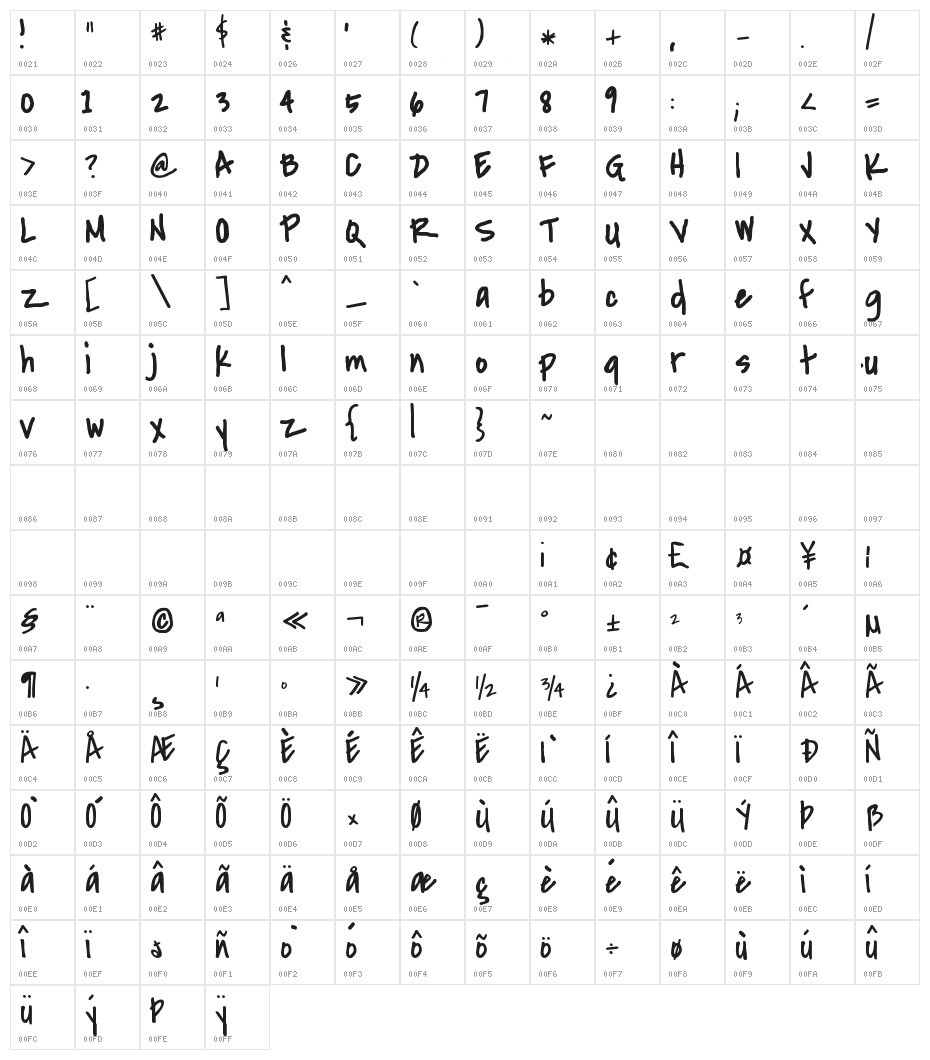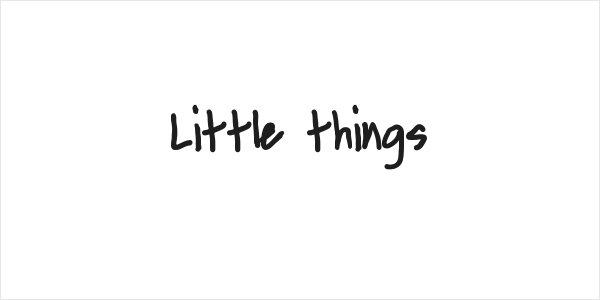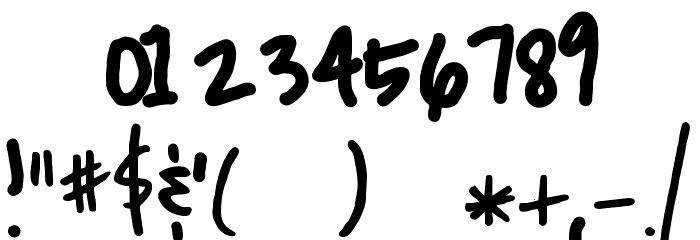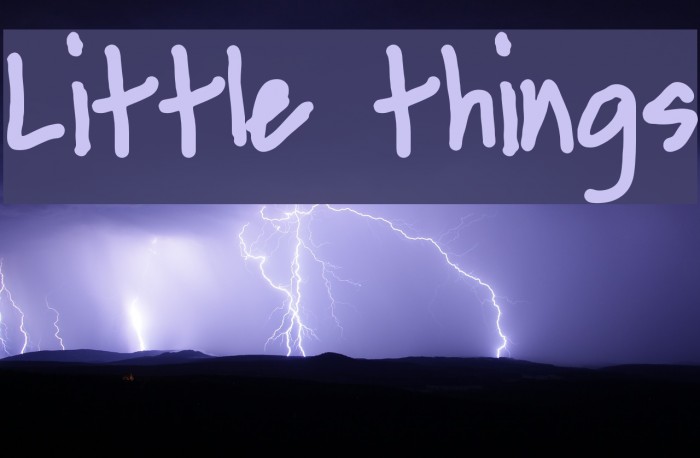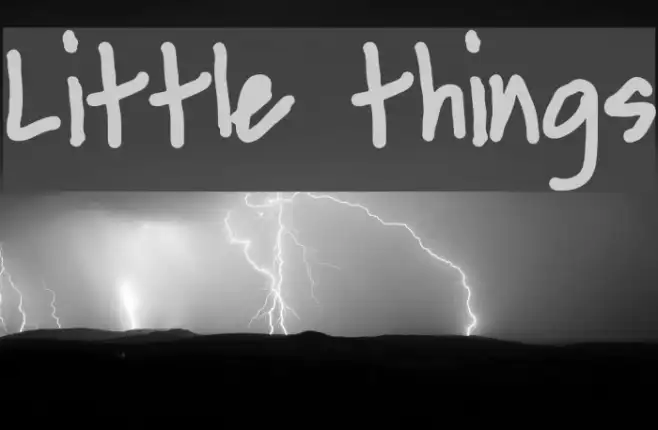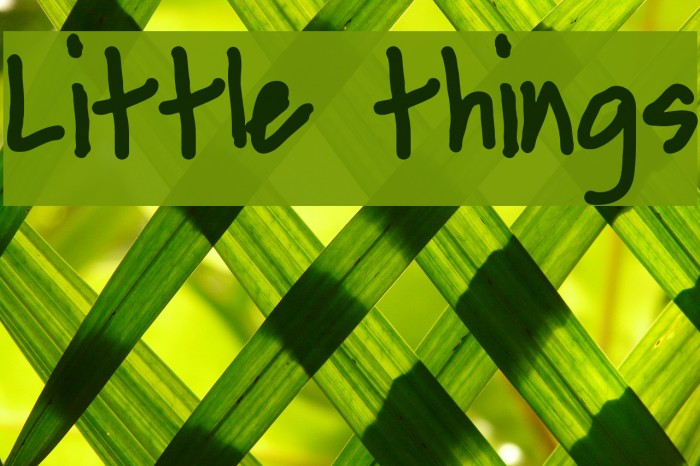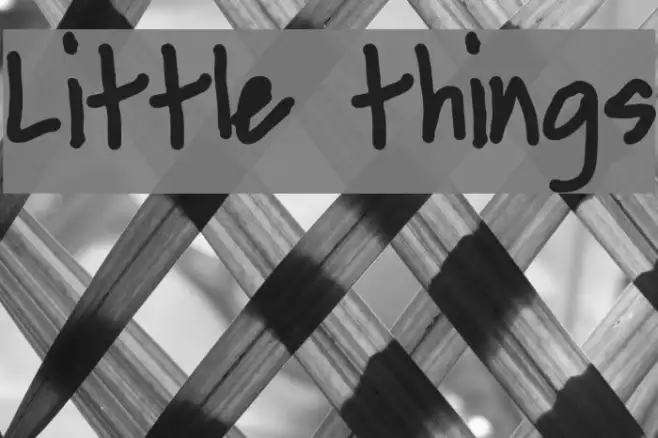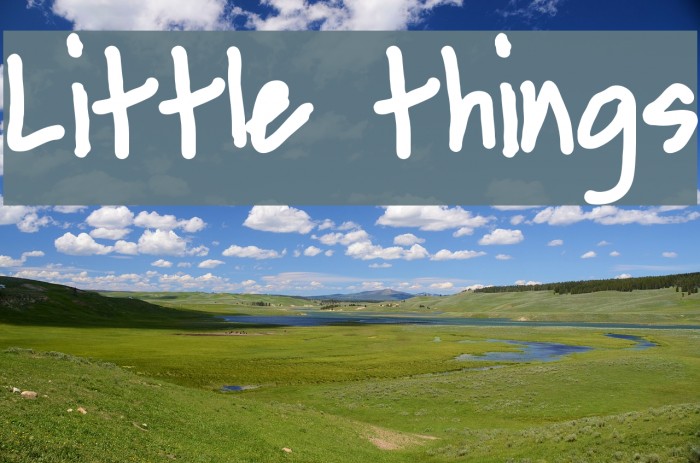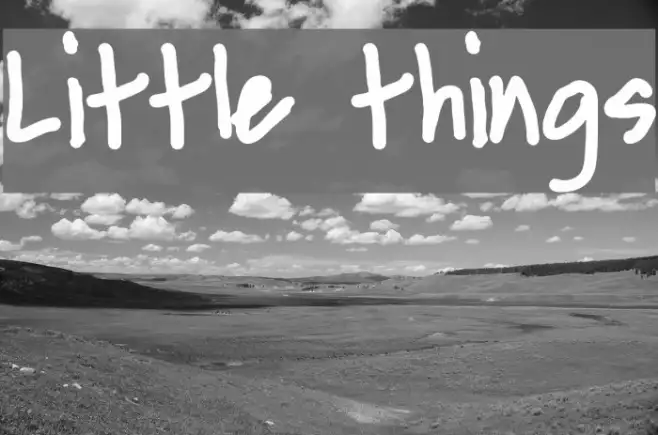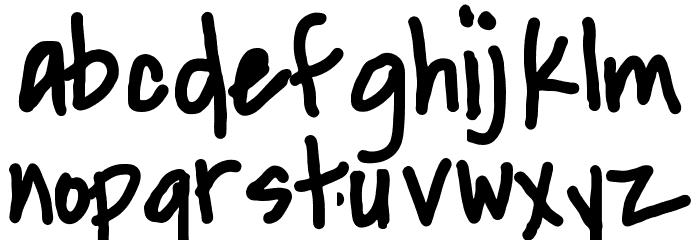
Little things Font
Little things Description
This font exhibits a playful and informal handwritten style, characterized by its bold and slightly irregular strokes. The letters are crafted with a casual flair, giving off a relaxed and approachable vibe. The uppercase and lowercase letters maintain a consistent style, with rounded edges and a slight tilt that adds to the font's dynamic appearance. Numbers and special characters follow the same aesthetic, ensuring a cohesive look across all elements. The overall impression is one of spontaneity and creativity, making it ideal for projects that require a personal touch.
| Proposed Projects | Ideal for greeting cards, children's books, casual branding, and social media graphics. |